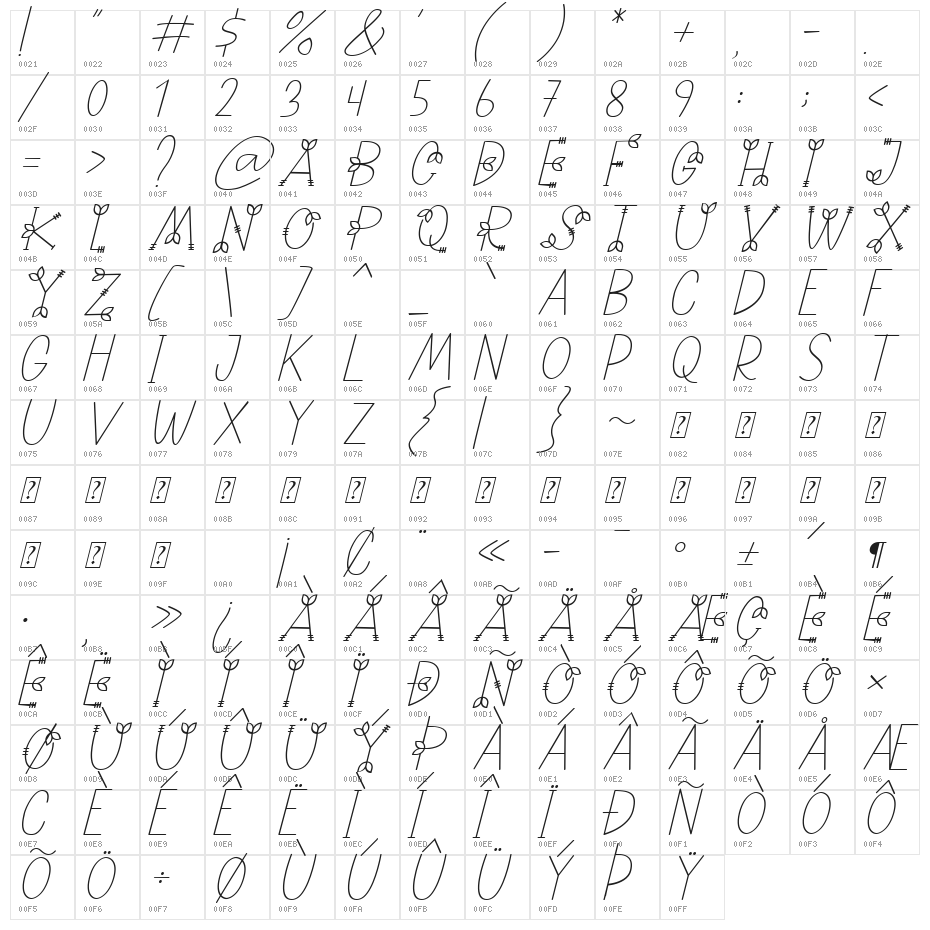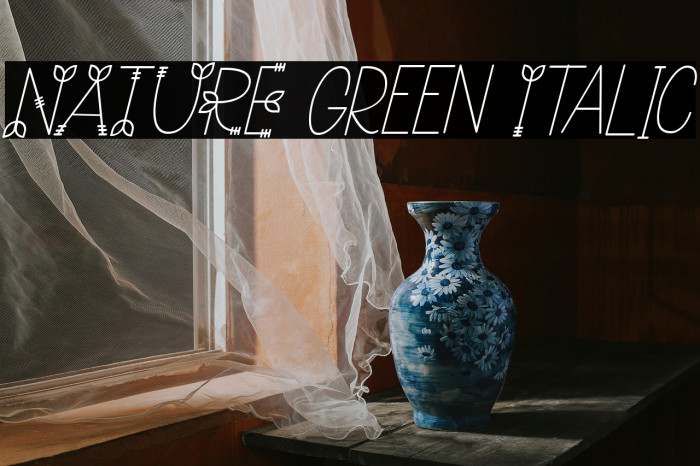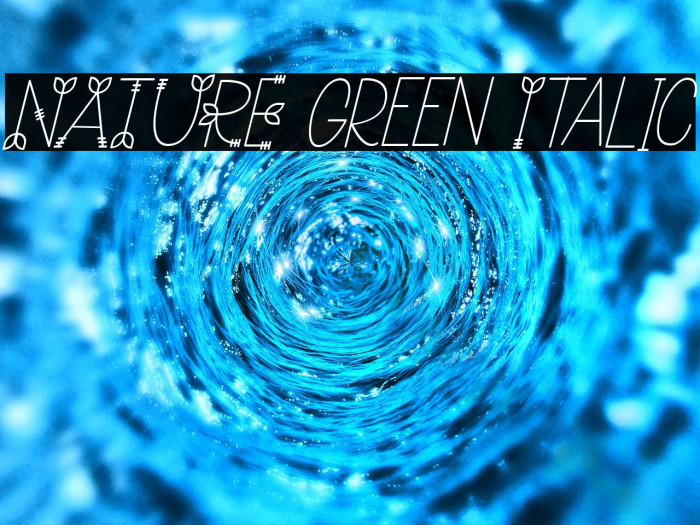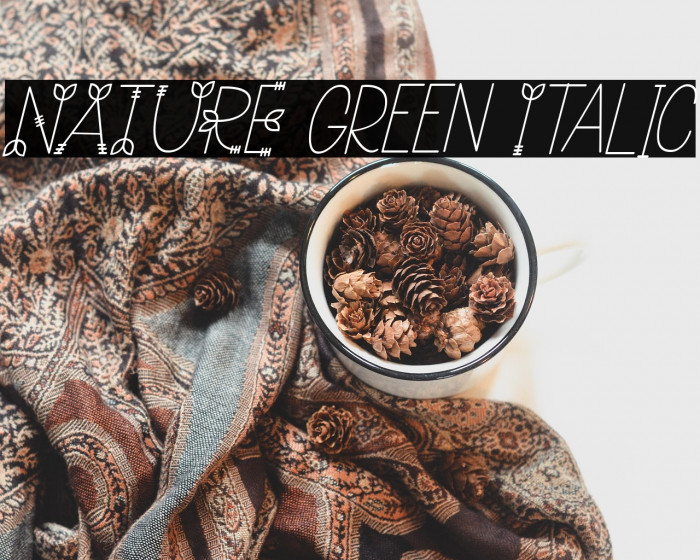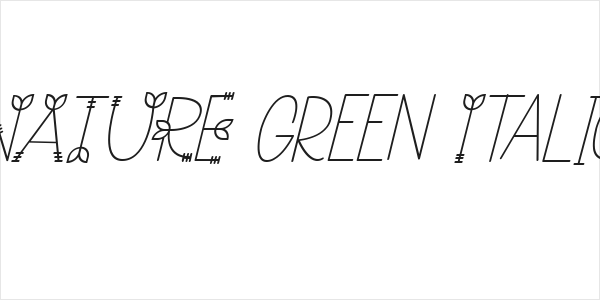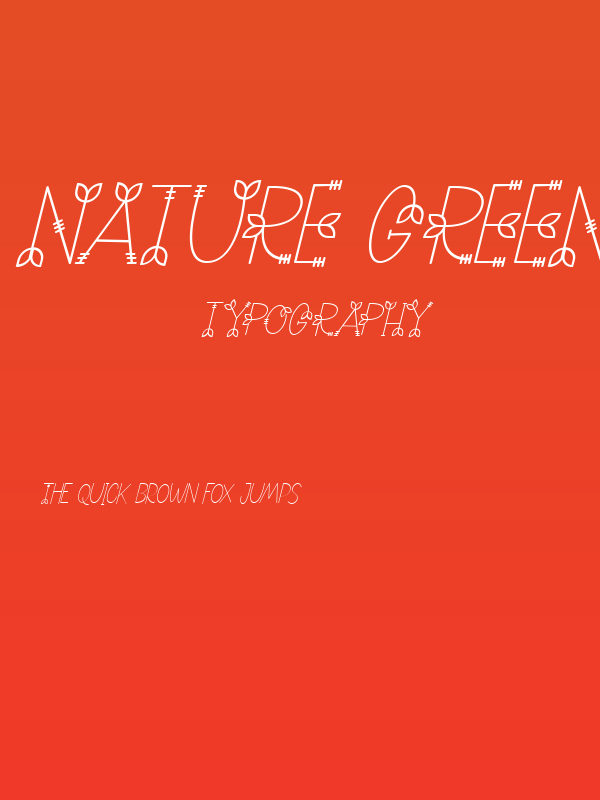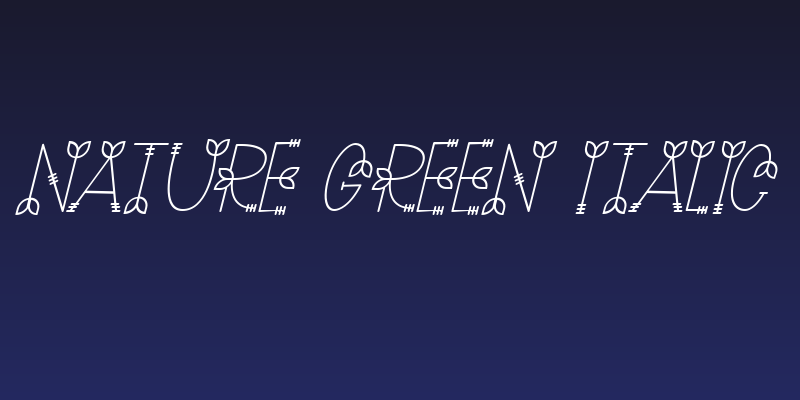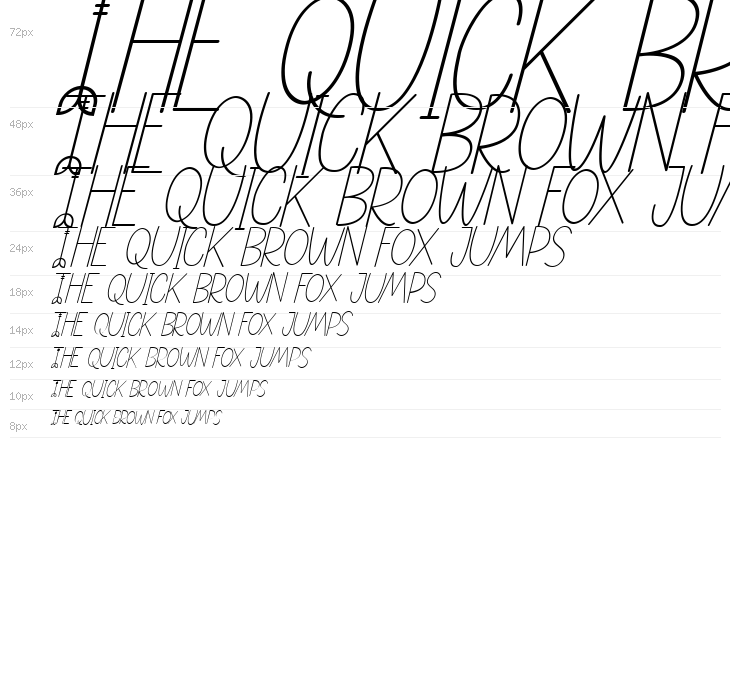
NATURE green Italic Font
NATURE green Italic Description
This font features a whimsical and nature-inspired design, with each letter incorporating elements that resemble leaves and branches. The uppercase letters are adorned with small leaf-like appendages, giving a playful and organic feel. The lowercase letters maintain a similar style, with a more streamlined appearance. The numerals and special characters are consistent with the overall theme, presenting a cohesive look. The font is italicized, adding a sense of movement and fluidity, which complements its natural motif. The strokes are thin, with a medium contrast, enhancing readability while maintaining the decorative elements.
| Proposed Projects | Ideal for eco-friendly branding, nature-themed events, children's books, and organic product packaging. |